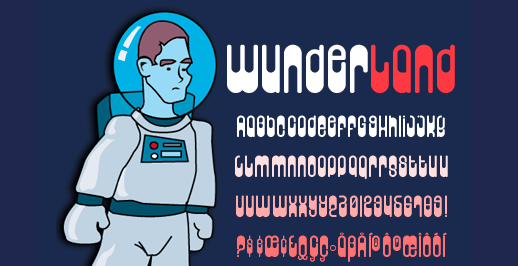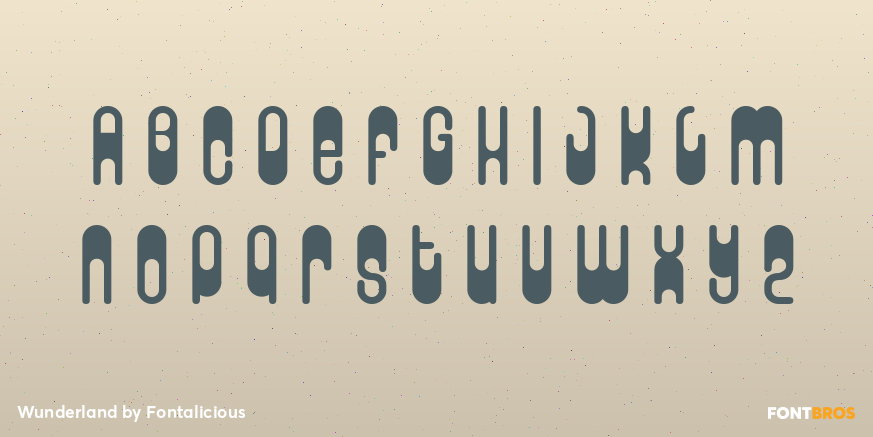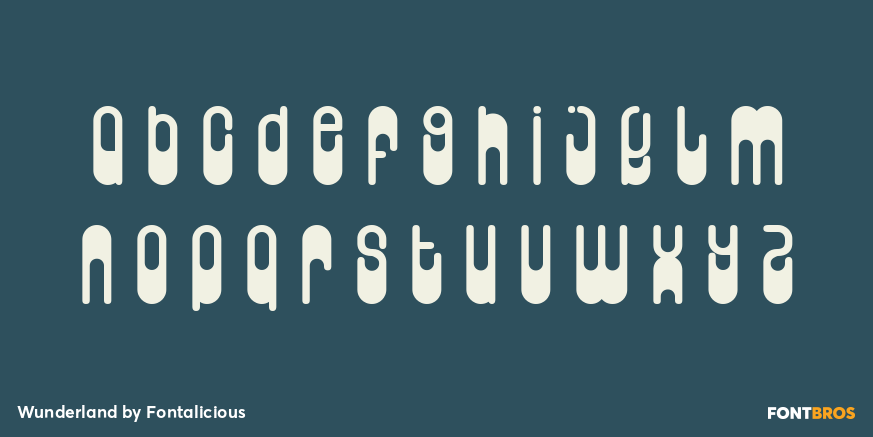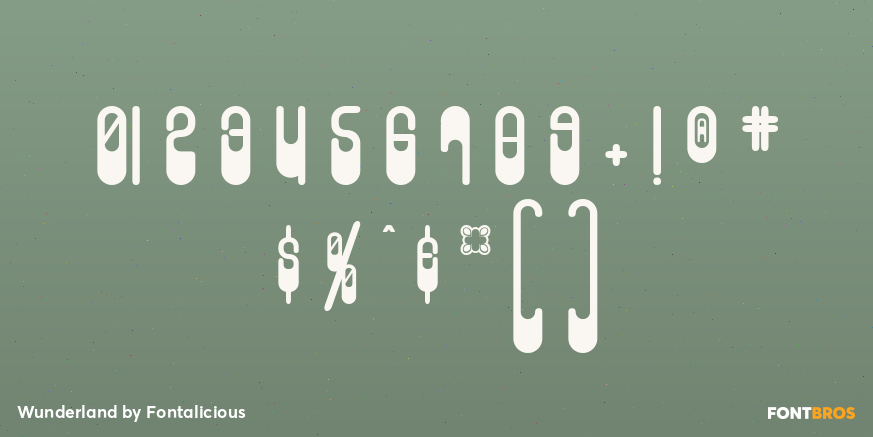
Wunderland
Font Family by Fontalicious
Not only does this little mofo have upper and lowercase, it has numbers, punctuation, and european characters, as well as a healthy supply of mathmatical characters! The next time they send a time capsule into space for aliens to intercept, I want to put this font on a floppy and send that up there with 'em.